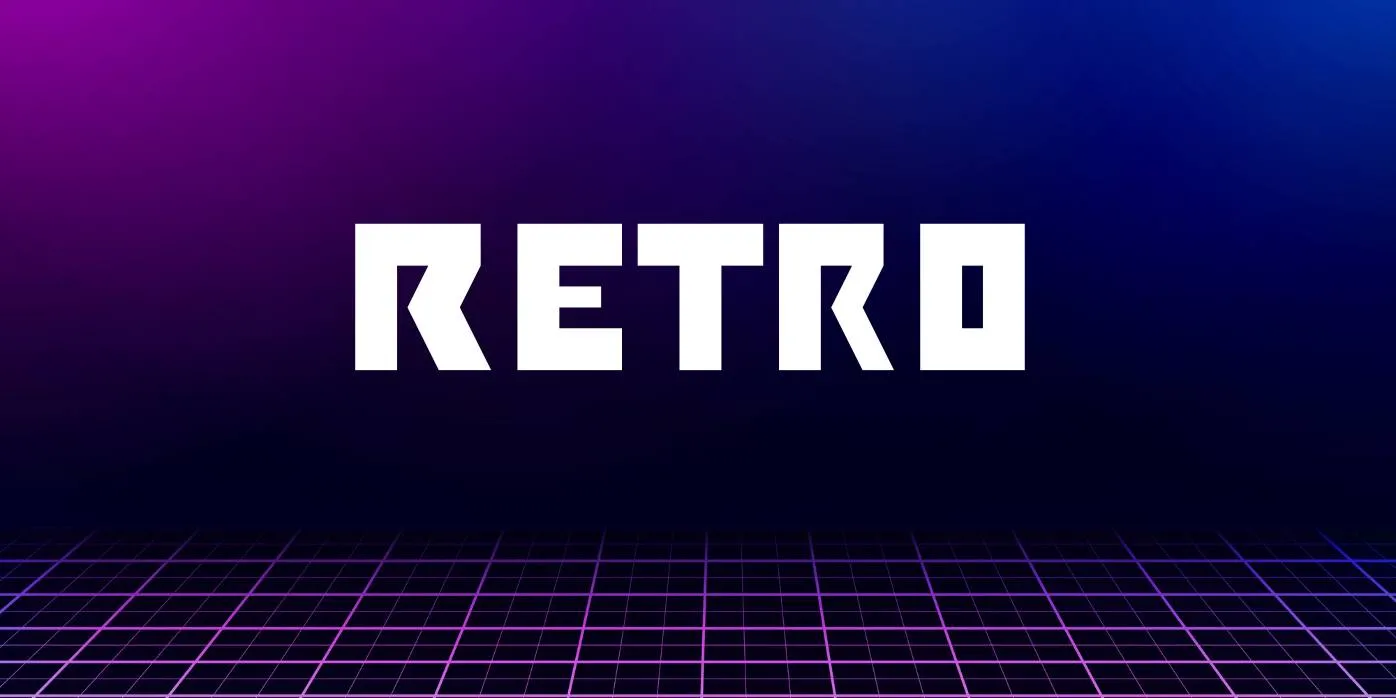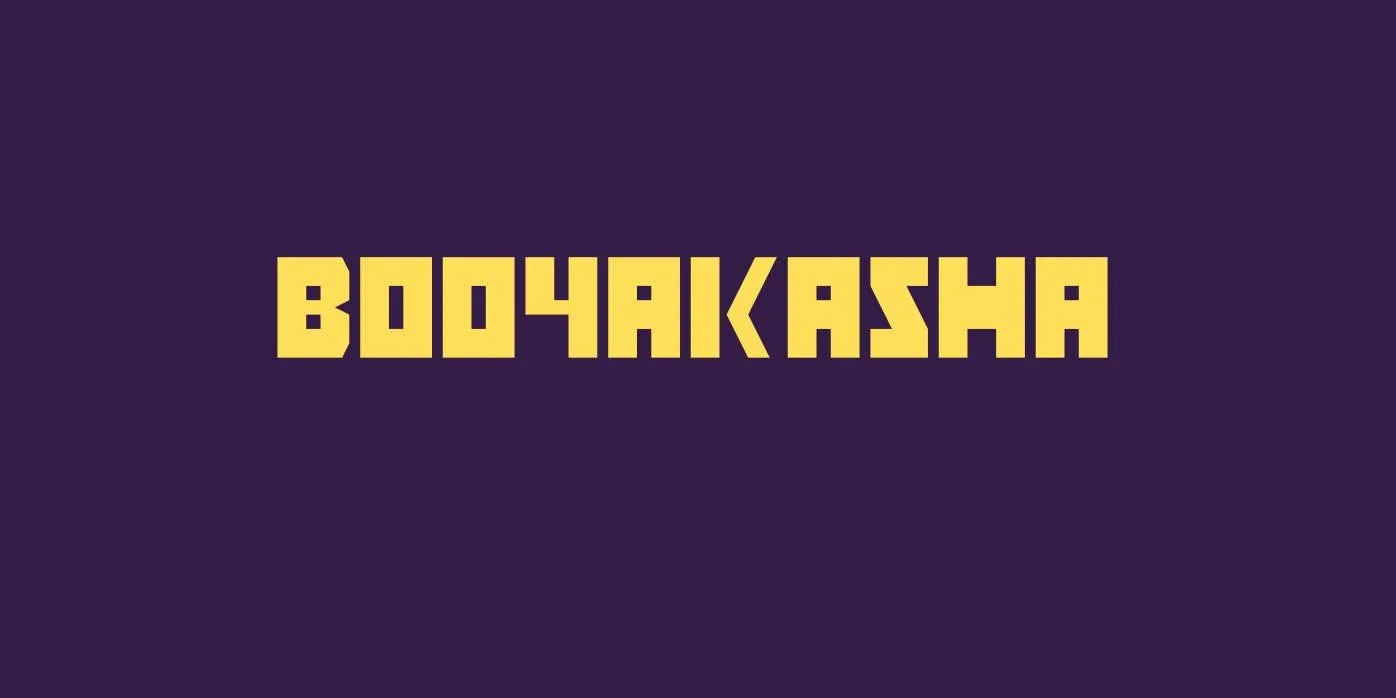
Booyakasha Font
Here we are presenting a very nice and amazing techno typeface the Booyakasha Font. This stunning font is designed by Jason Muriithi Kiama and manufactured by Fontshop International. It contains many different features which make it look strong and attractive. All characters are in capital form which makes it look more visible and you can use it for techo or sci-fi projects.
This font has 103 characters, 104 glyphs, and 1000 units per EM. The weight of the font is bold and its width is medium (normal). Unicode supported by this font is 2.0 and BMP only. You can copy and paste your text into the online generator tool to change your simple design into a stylish look within seconds.
Usage You can make so many different projects by using this font. It has characters, symbols, numbers, and capital letters which makes it suitable for many projects. It can be used to design banners, posters, flyers, and brochures for different projects. This font is considered a very good choice for both print and digital media.
You can make attractive logos and titles by using it. It can be used to design titles for video games and Sci-Fi movies. You can make or edit graphic or website designs by using Illustrators, Adobe Photoshop, and Canva. It is For making social media posts and YouTube thumbnails you can also utilize this font.